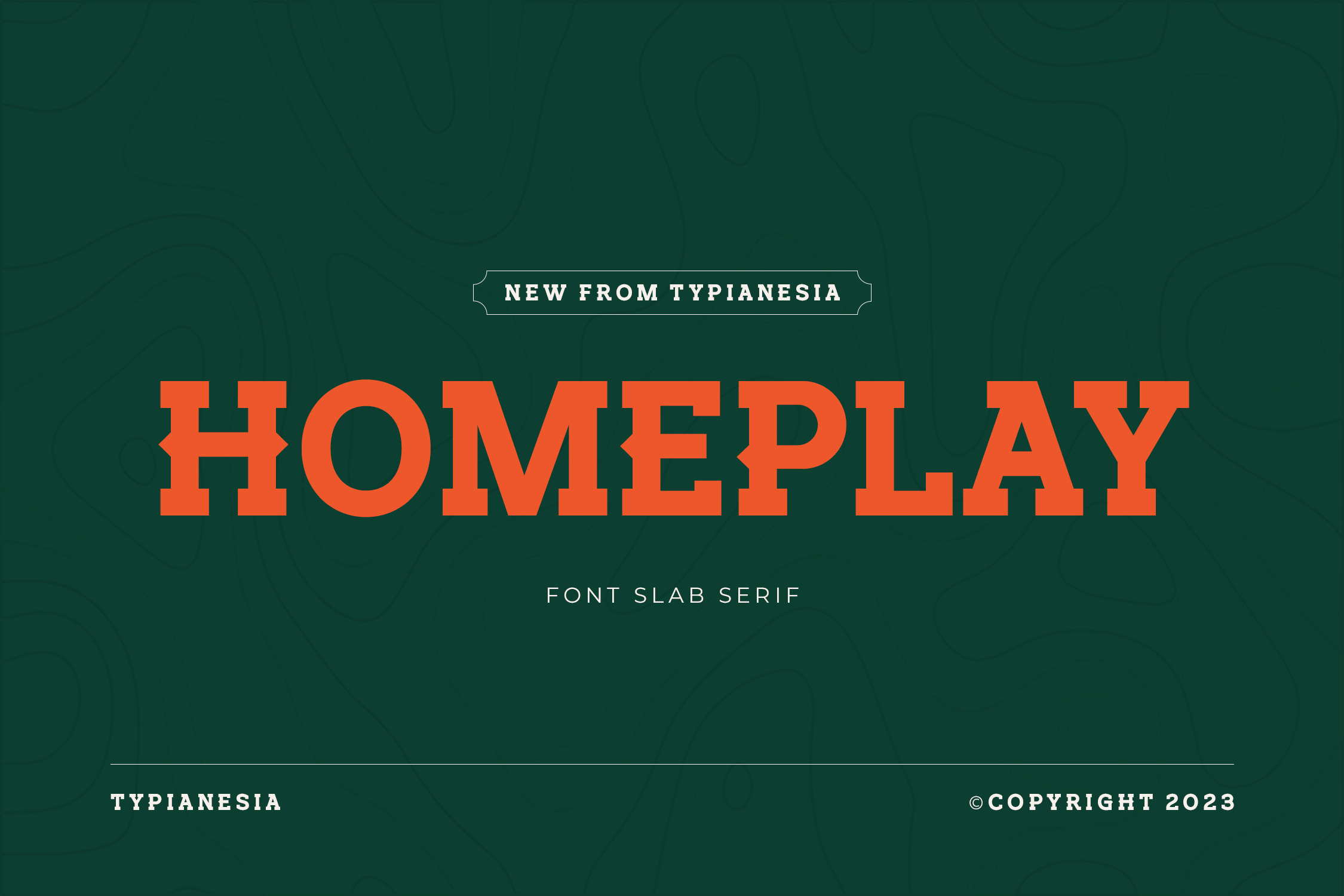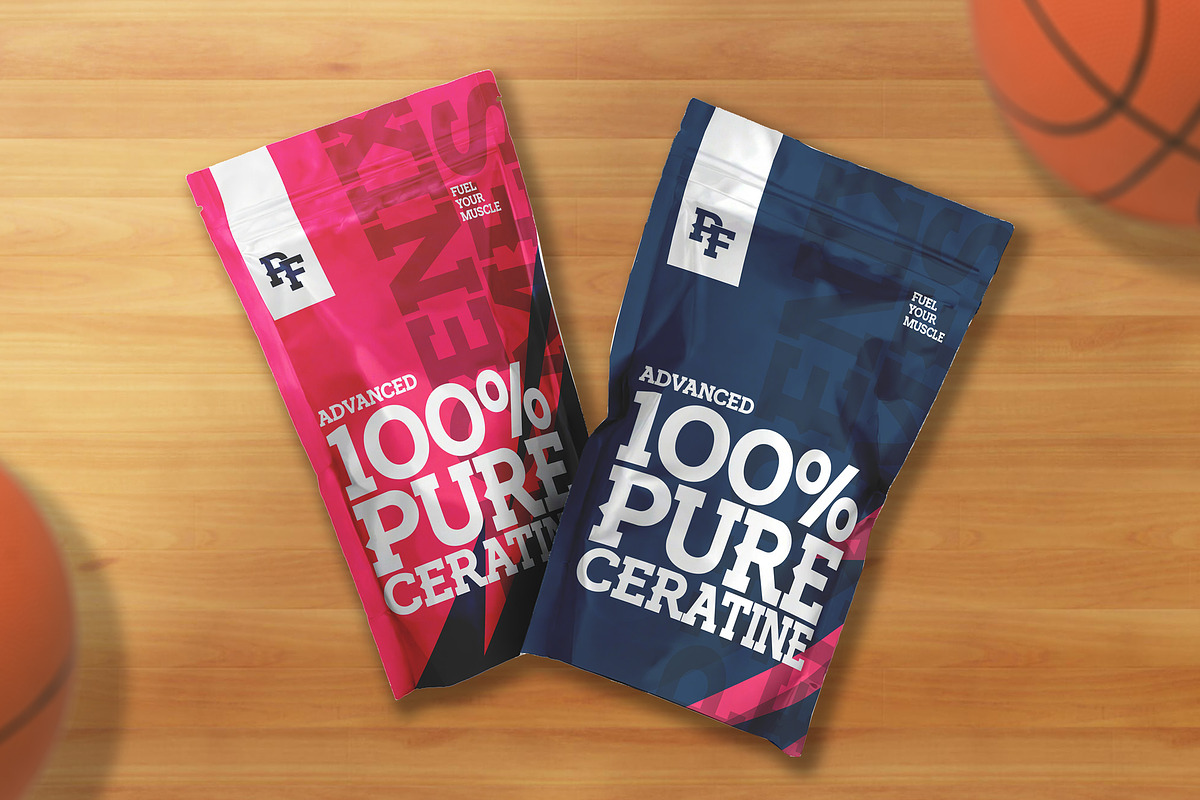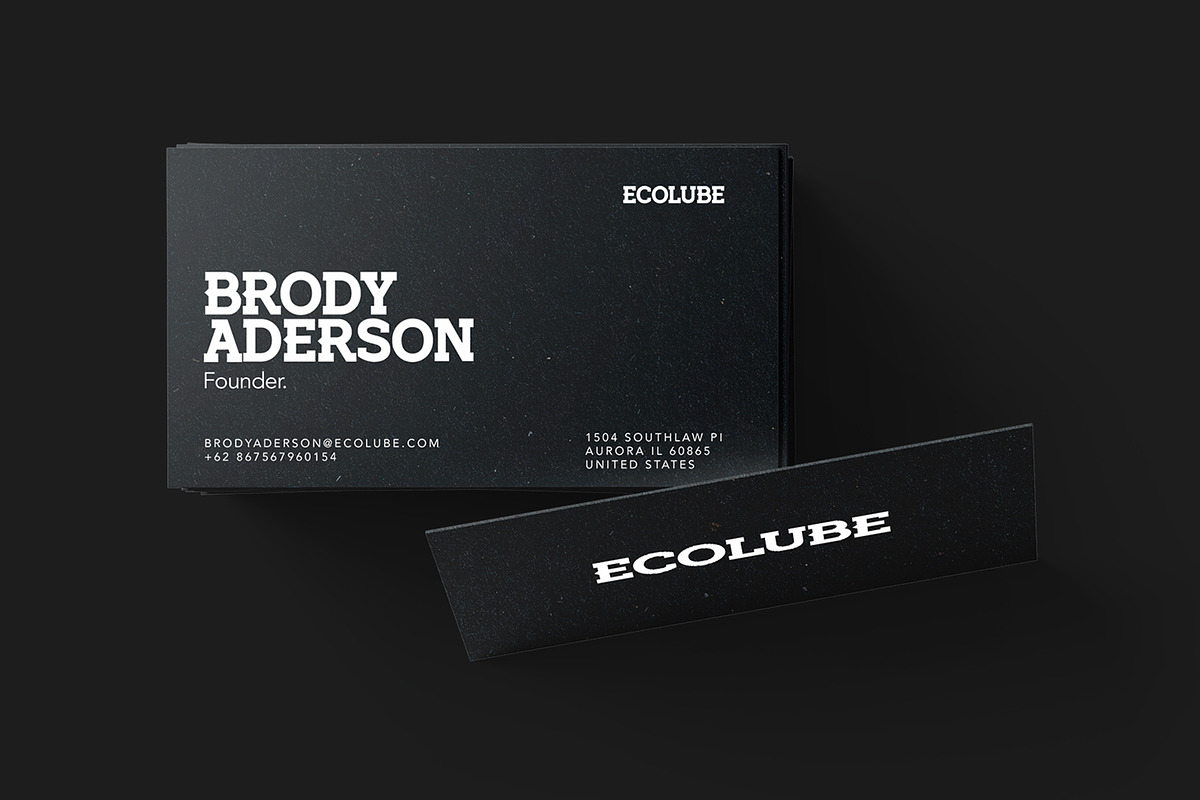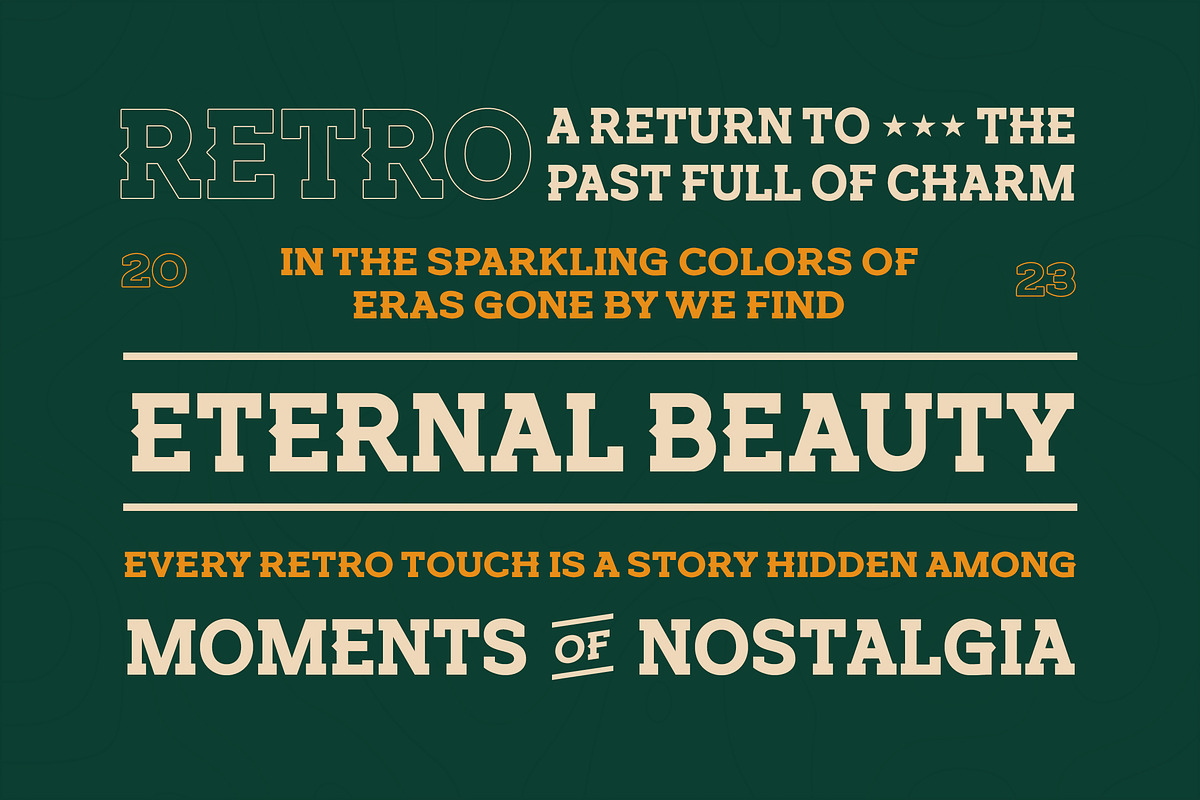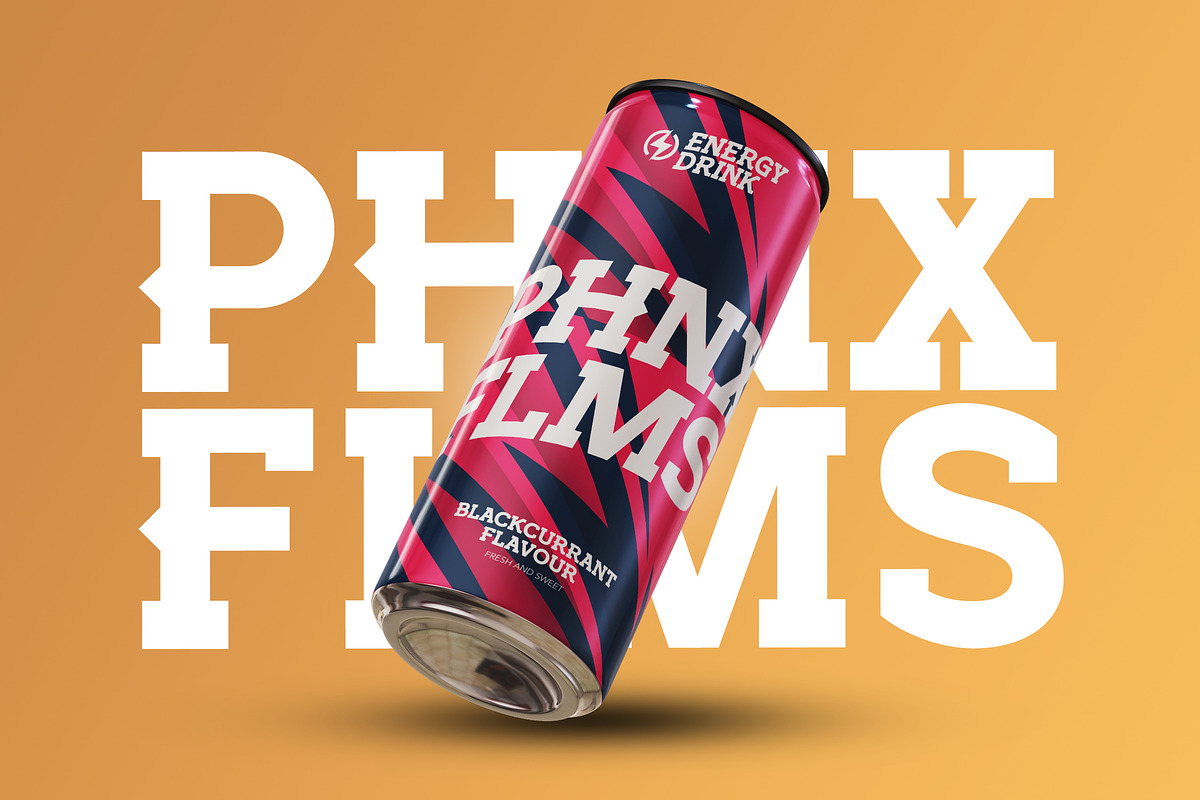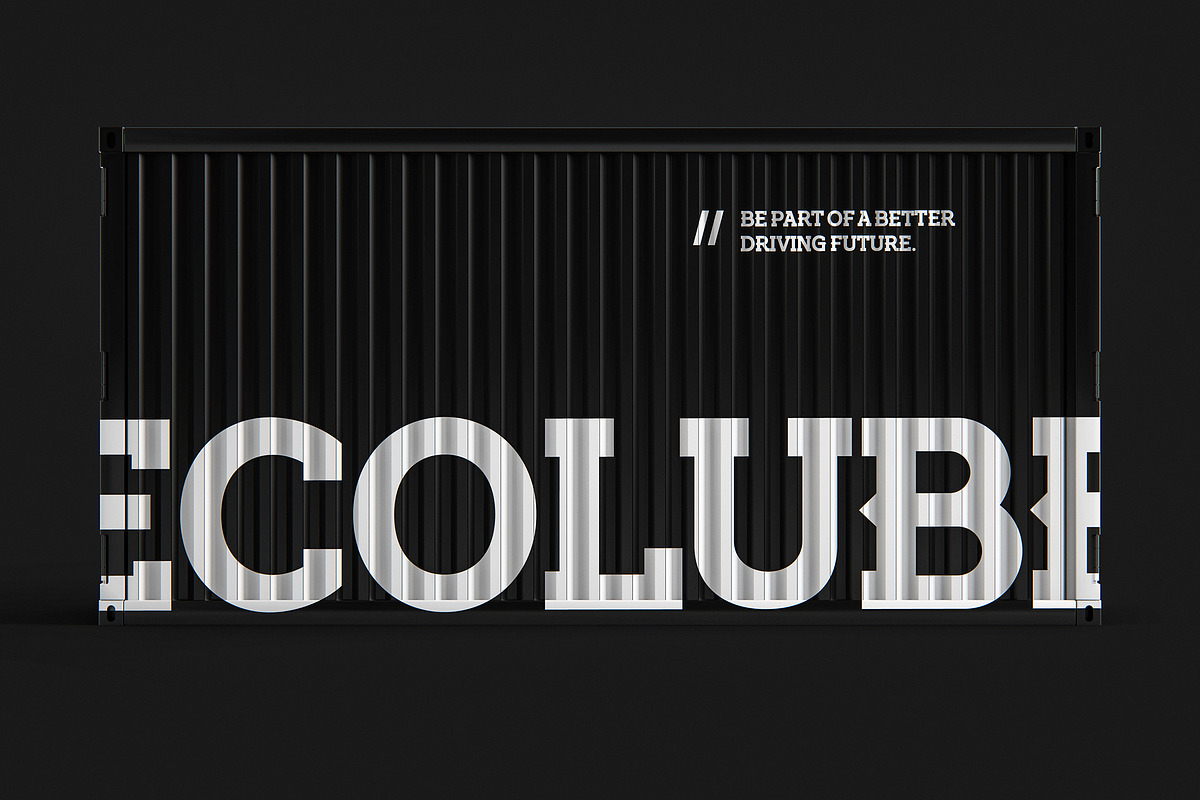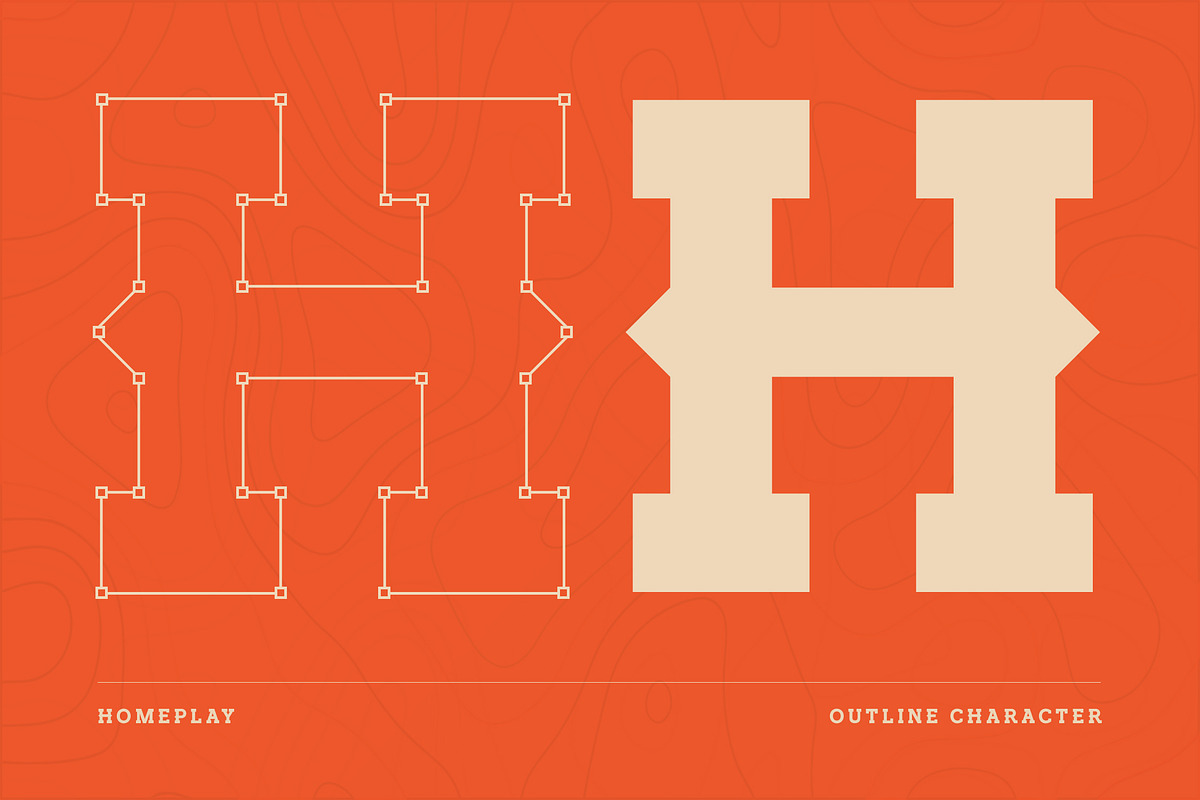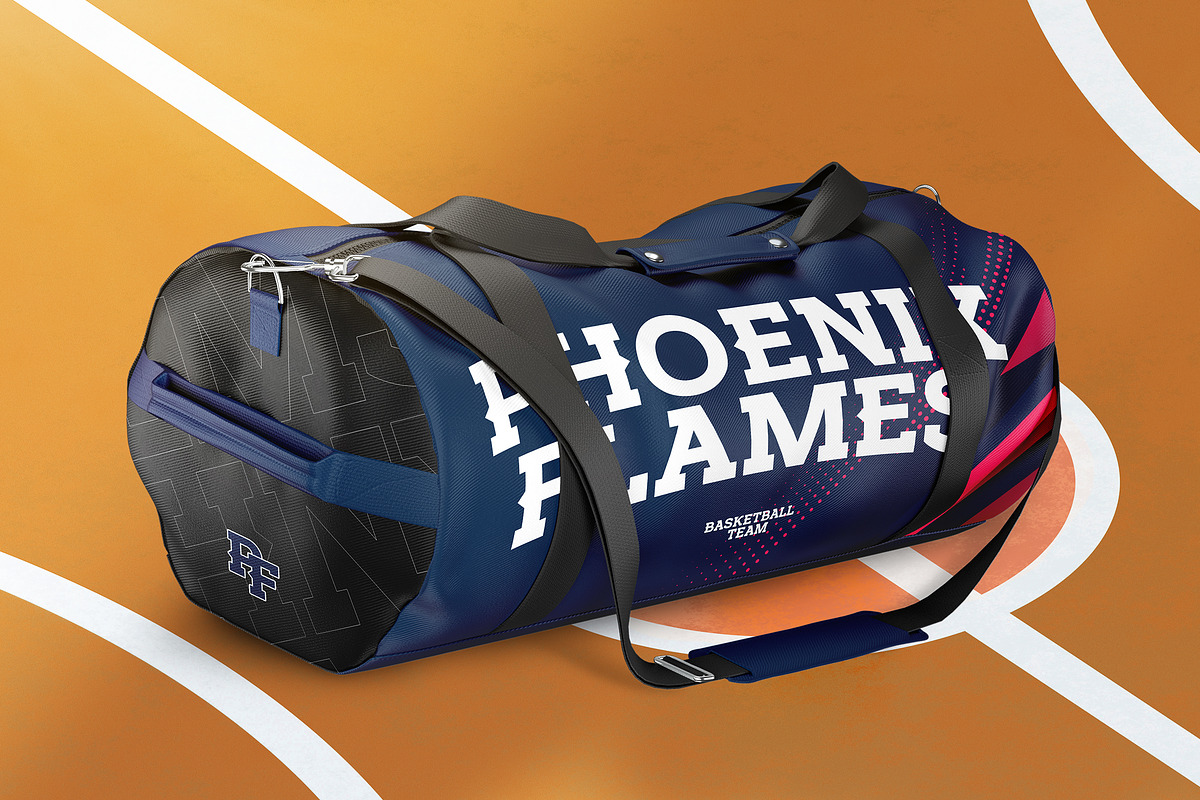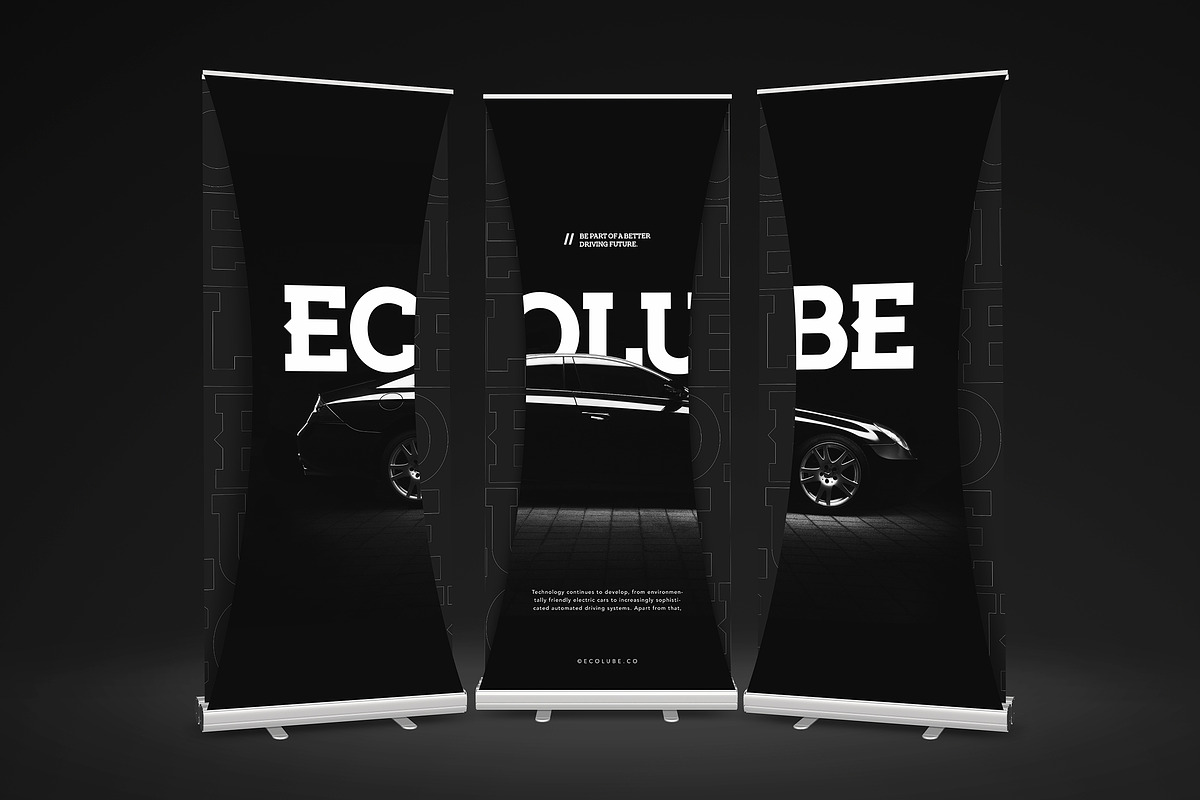
Homeplay - Font Slab Serif
Homeplay - Bold Manly Strong - Slab Serif Meets Impactful Design.
Homeplay boasts a Slab Serif style font, characterized by its bold and distinctive letterforms. The font with a Slab Serif style can convey a sense of solidity, reliability, and a touch of modernity. Ideal for various design projects such as branding, editorial design, posters, social media graphics, product packaging and web applications, Homeplay adds a touch of sophistication to any visual communication. With its distinctive ligature, Homeplay stands out by seamlessly connecting characters for a unique and visually appealing look. This font provides a comprehensive package, featuring uppercase and lowercase letters, punctuation marks, numerals, multilanguage support, and an additional outline option for creative flexibility. The font it's a perfect choice for designers seeking a balance between Bold and modernity.